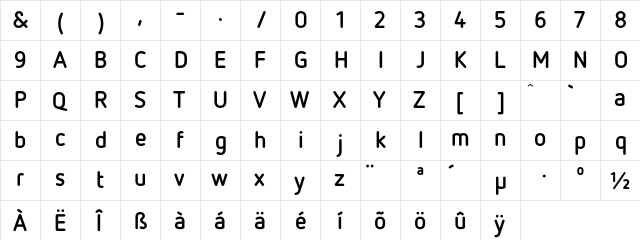
Netto OT Bold
| Foundry | Daniel Utz |
Design Context for Netto OT Typeface
Netto OT is a composed and adaptable typeface that performs quietly and consistently across a wide range of design contexts. Its bold stroke weight gives it real presence on the page.